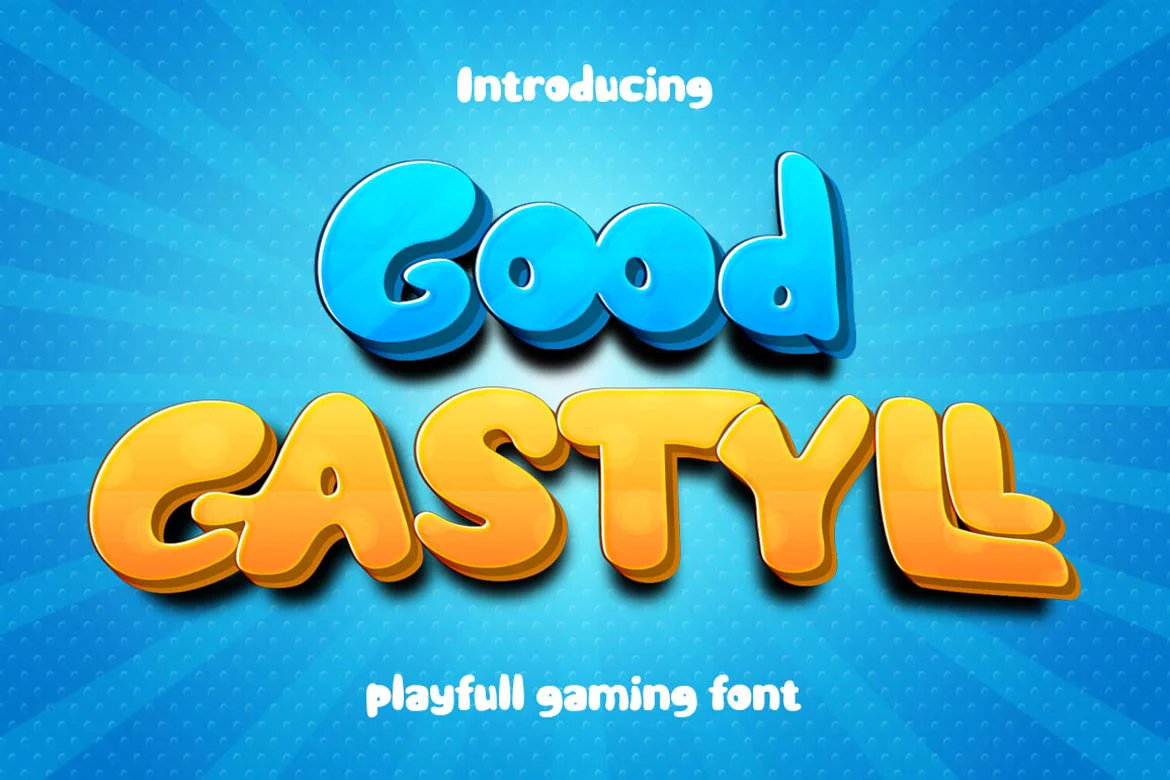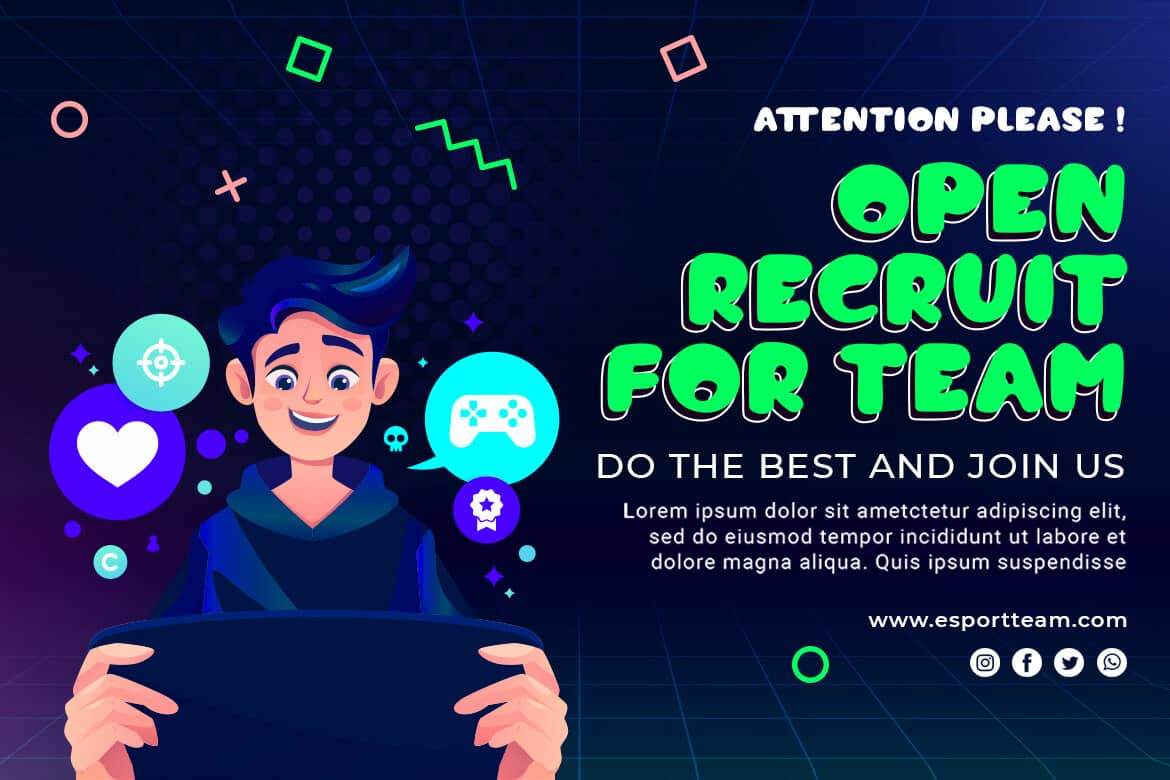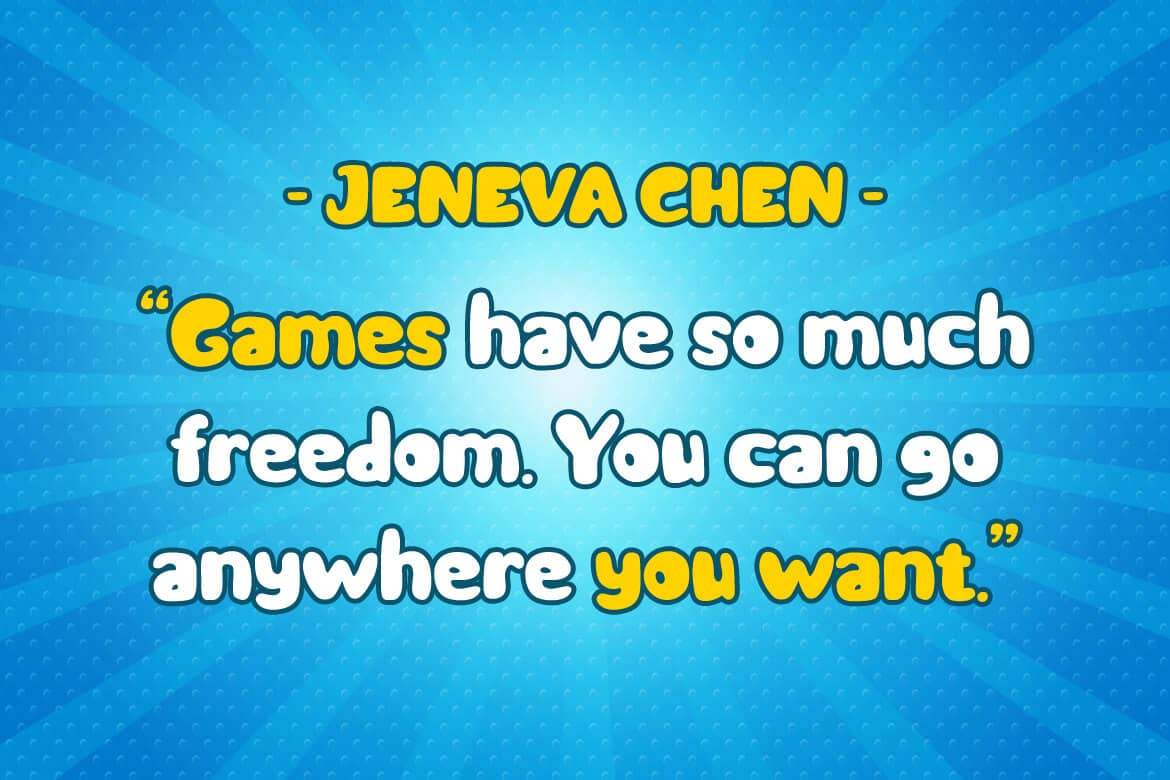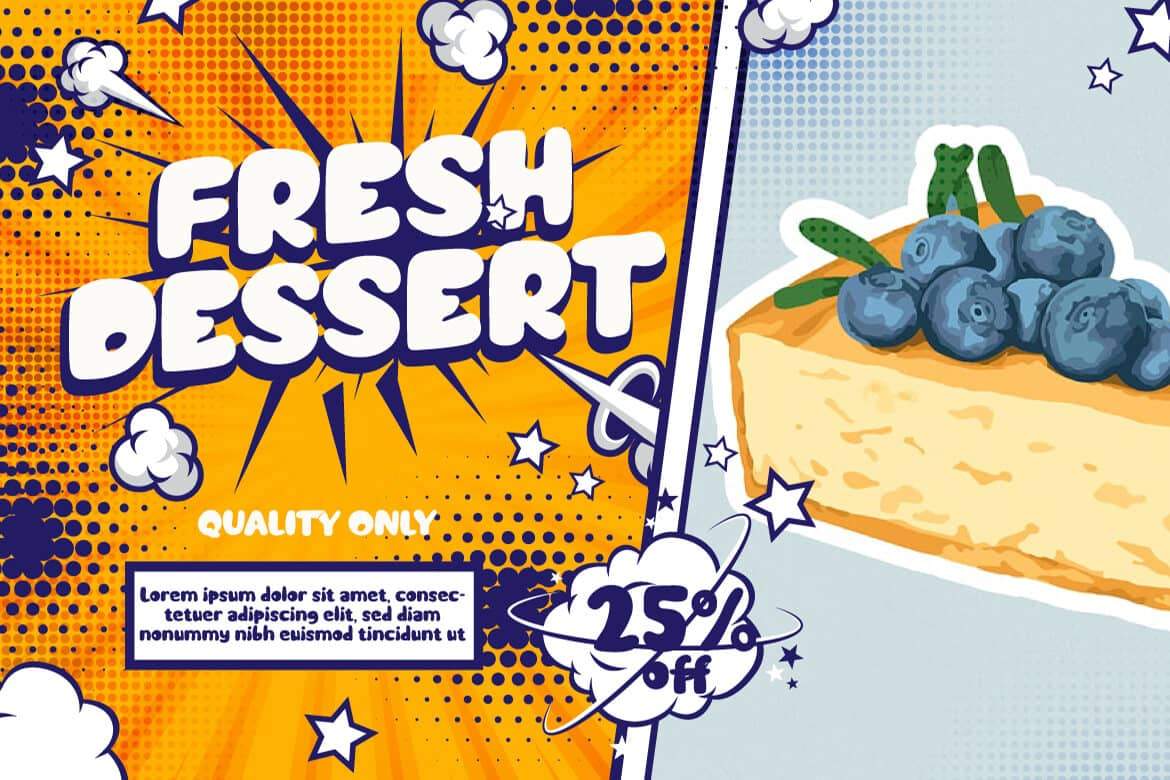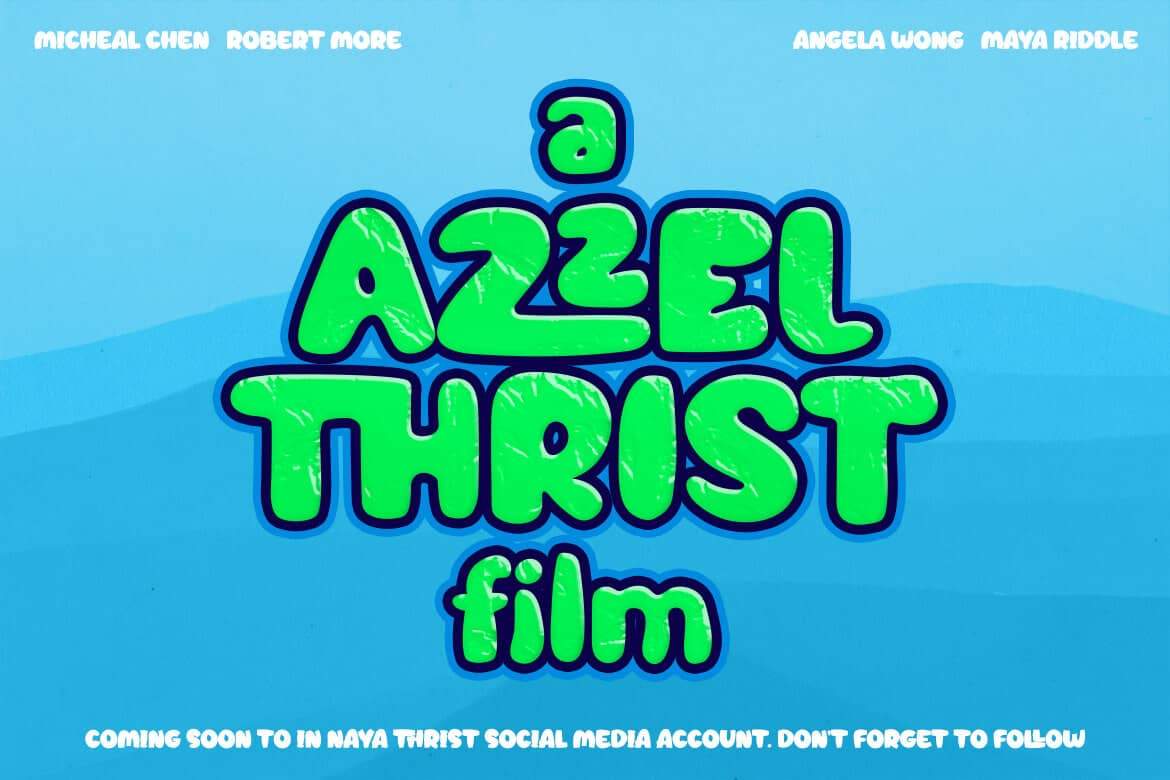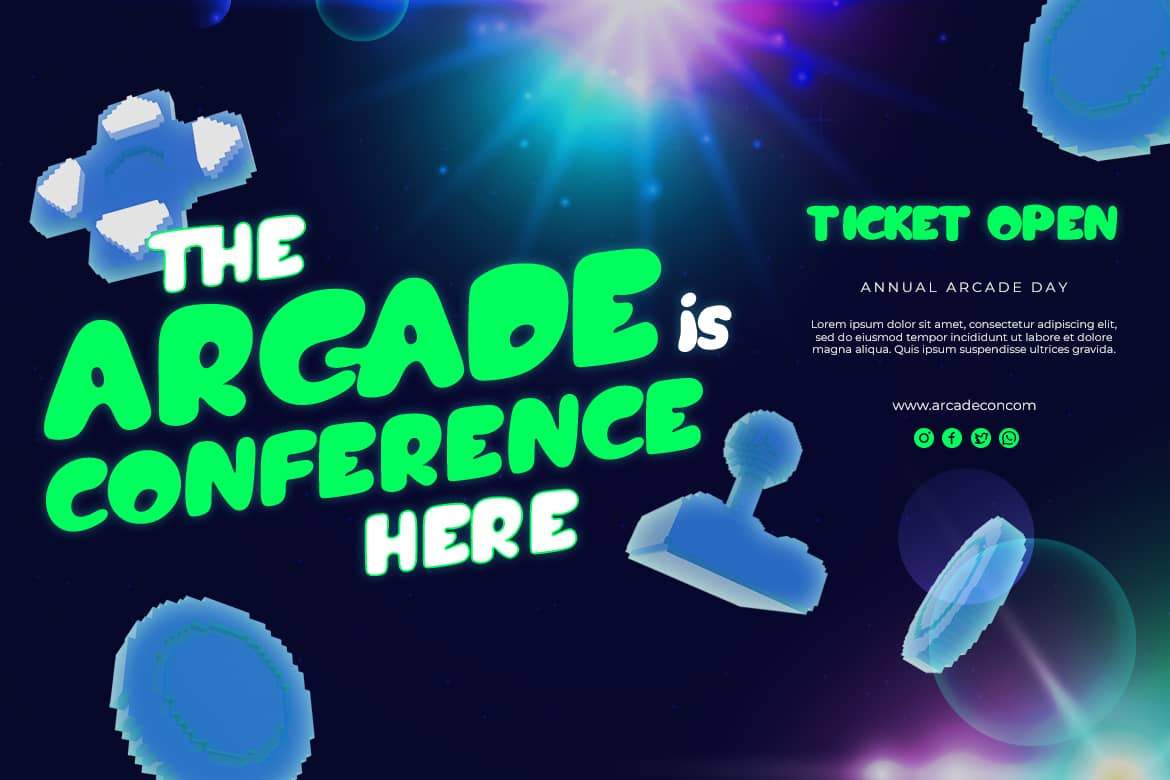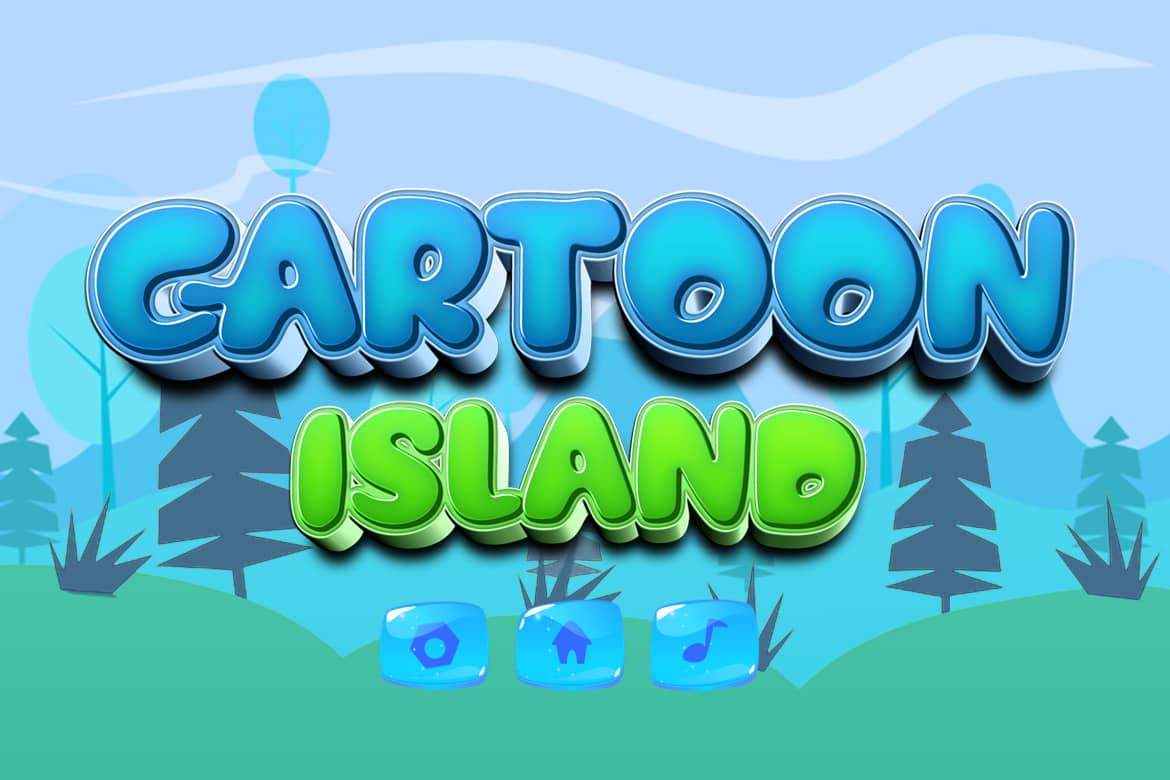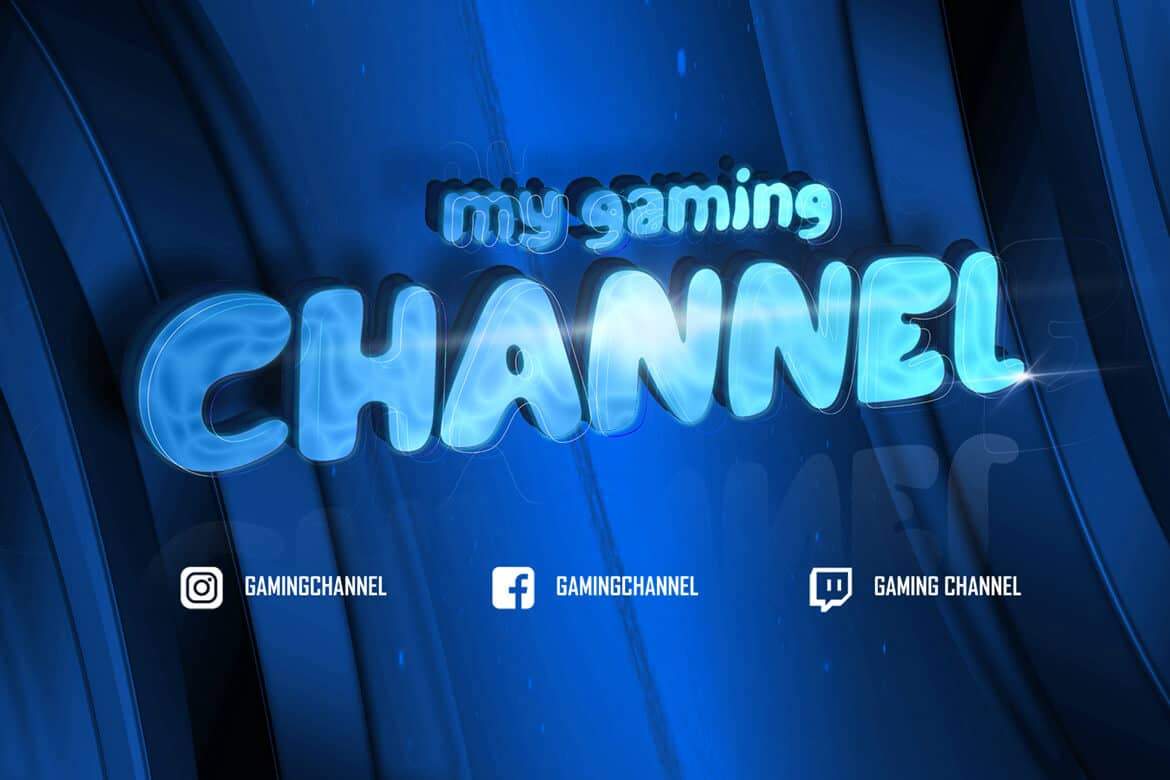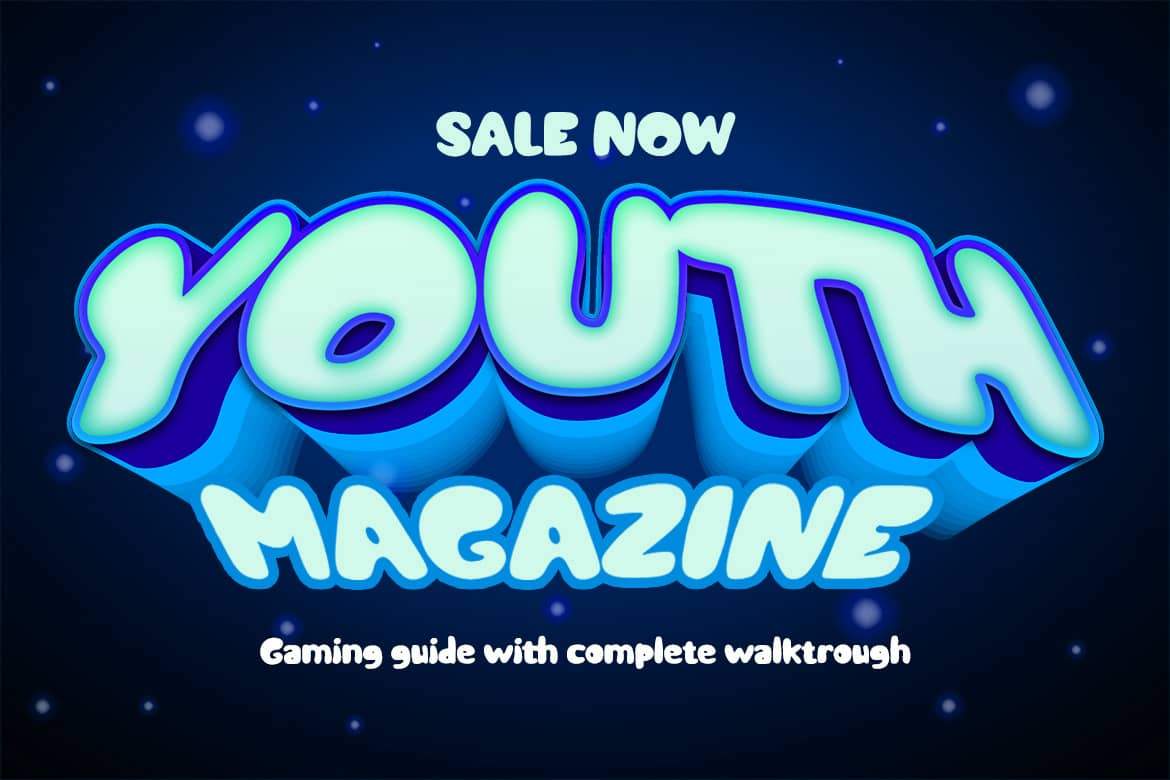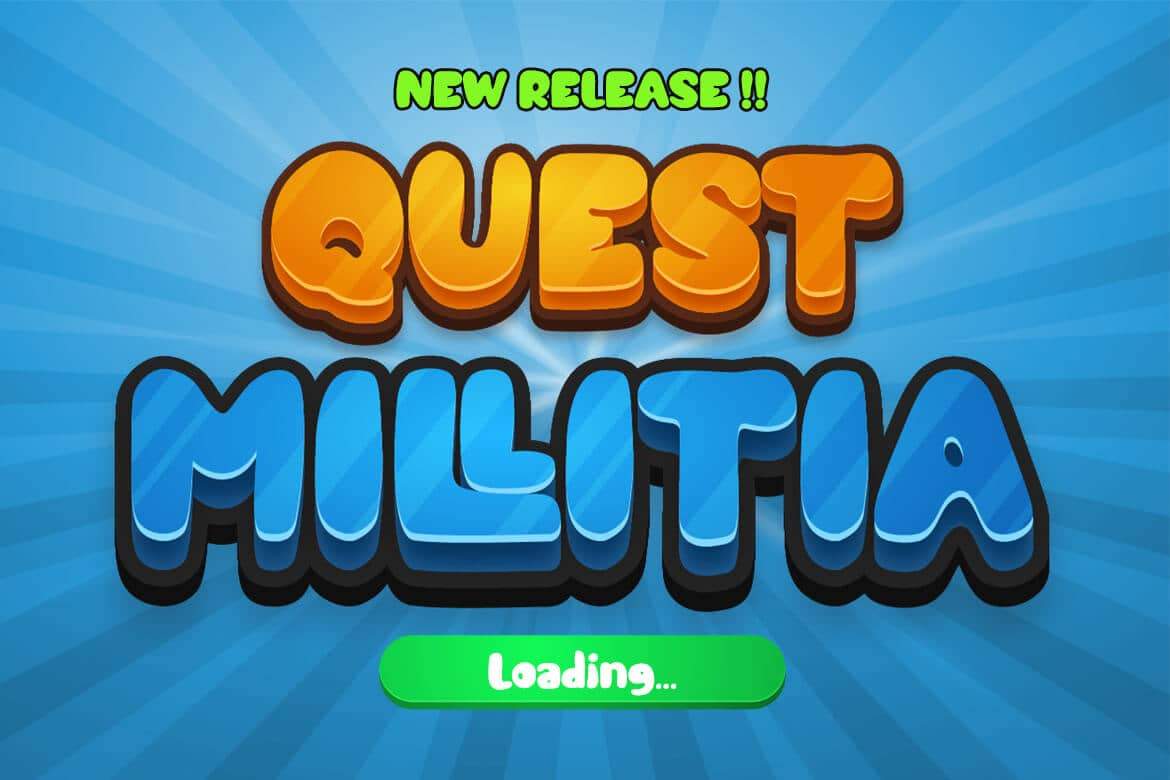
Good Castyll Playful Font
Good Castyll is our newest display font, and it has a laid-back, unique feel to it. It was created with a genuine hand touch, so it seems natural when viewed.
This font is ideal for adding a touch of class to your creative work.
Start creating fantastic projects with this font, and you’ll notice a distinct difference in the way it’s used.
This font is perfect for games, sporting events, branding, banners, posters, movie titles, book titles, quotes, logotypes, and more.
of course, your various design projects will be perfect and extraordinary if you use this font because this font is equipped with a complimentary font family, both for titles and subtitles and sentence text, start using our fonts for your amazing projects.